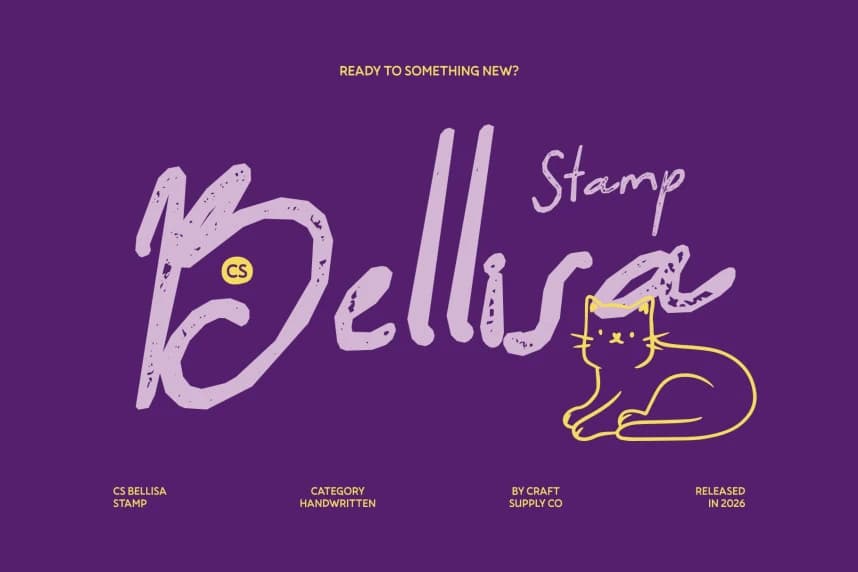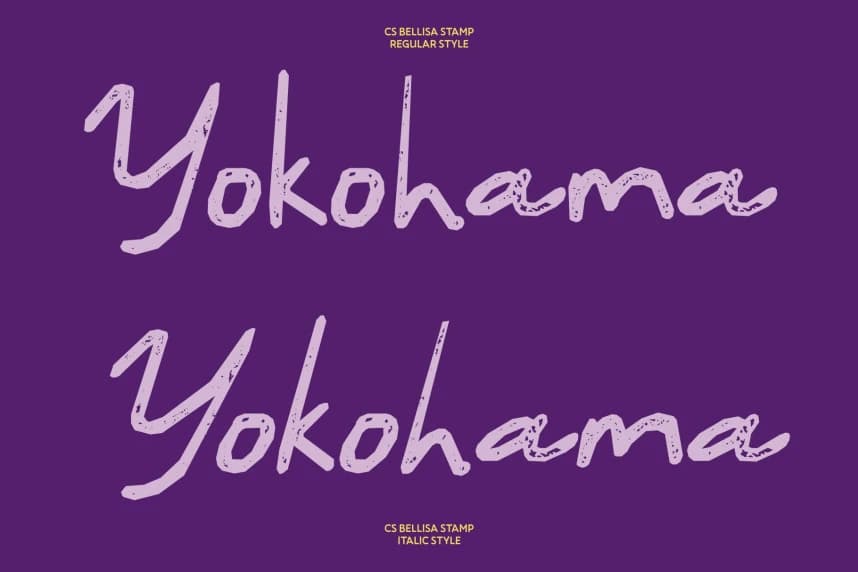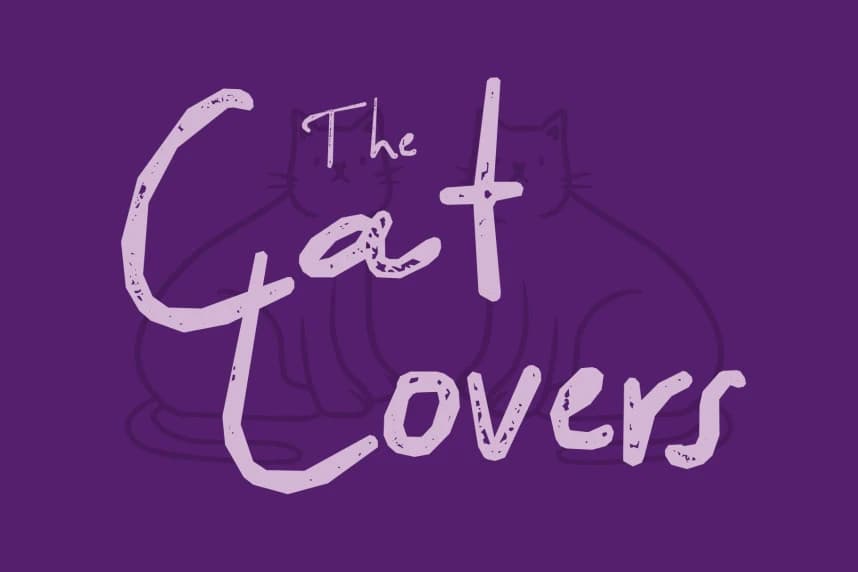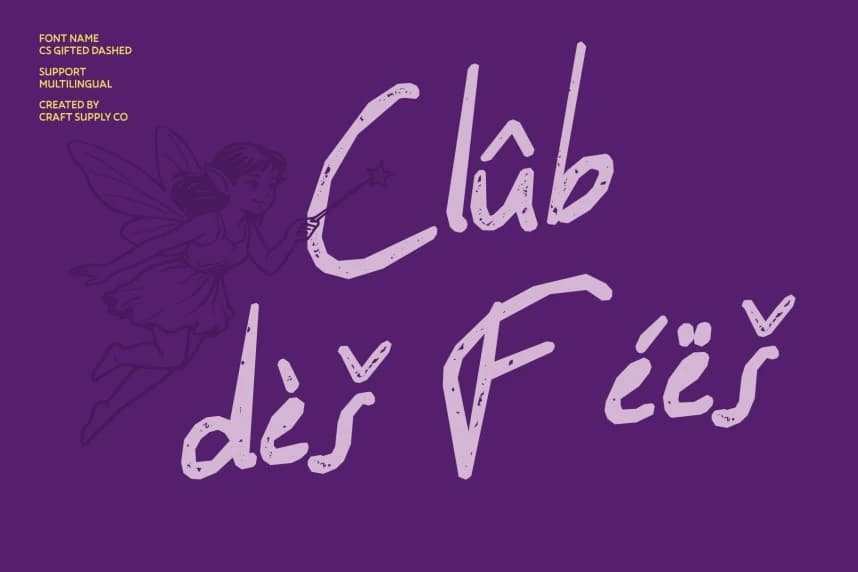
CS Bellisa Stamp Font
CS Bellisa Stamp Font – Casual Charm with a Personal Touch Expressive Handwriting with Stamped Warmth. This is a friendly handwritten font that blends sans serif expressiveness with a subtle stamped texture.